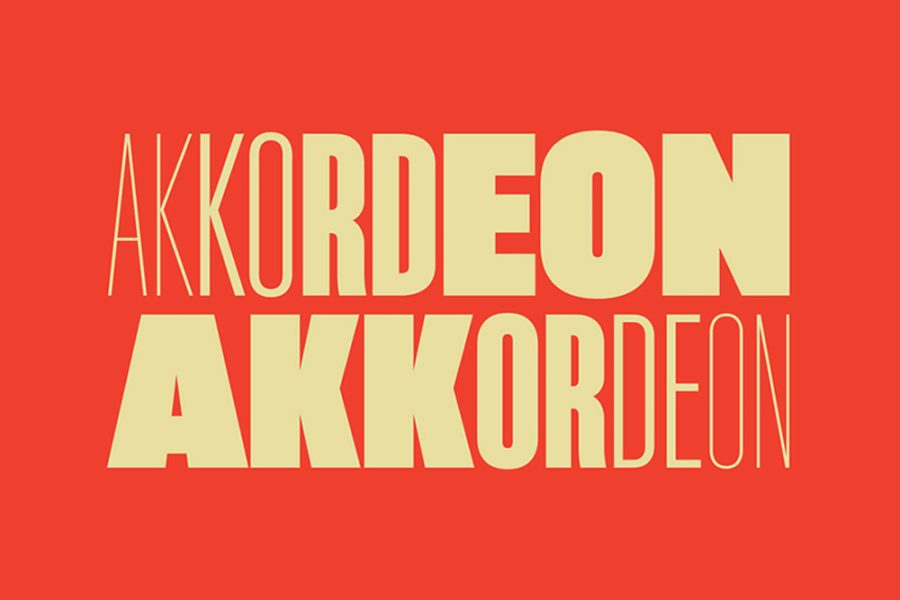
Akkordeon Font Family Demo is a display font family inspired by grotesques from the XIX and XX centuries. It is not to be a family of constant width but has a variable breadth from narrow to expanded, offering a wide gradation of weights. However, Akkordeon Font Family Demo is ideal for short texts such as magazine titles, banners, cover books, and more. It is also great for any situation where a compact, solid and powerful font requirement.
Akkordeon Font Family Demo
Akkordeon Font Family Demo is a display font family inspired by grotesques from the XIX and XX centuries. It is not to be a family of constant width but has a variable breadth from narrow to expanded, offering a wide gradation of weights. However, Akkordeon Font Family Demo is ideal for short texts such as magazine titles, banners, cover books, and more. It is also great for any situation where a compact, solid and powerful font requirement.